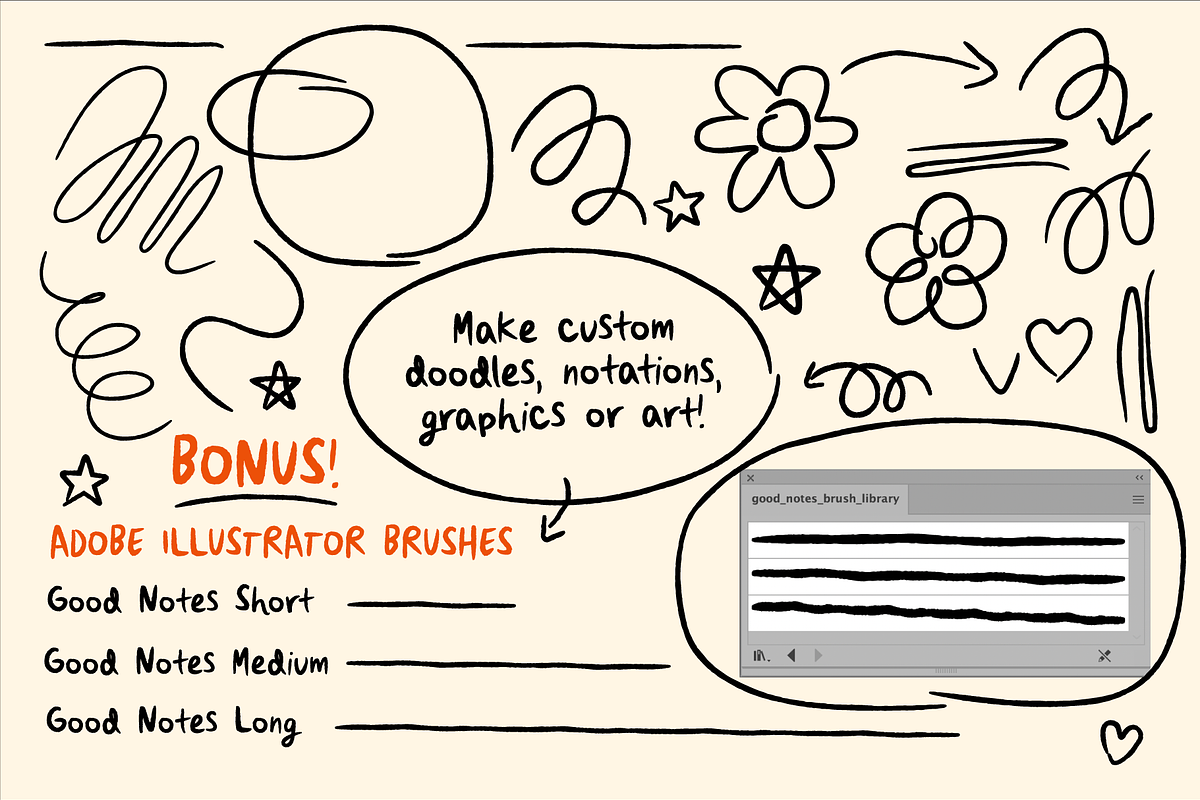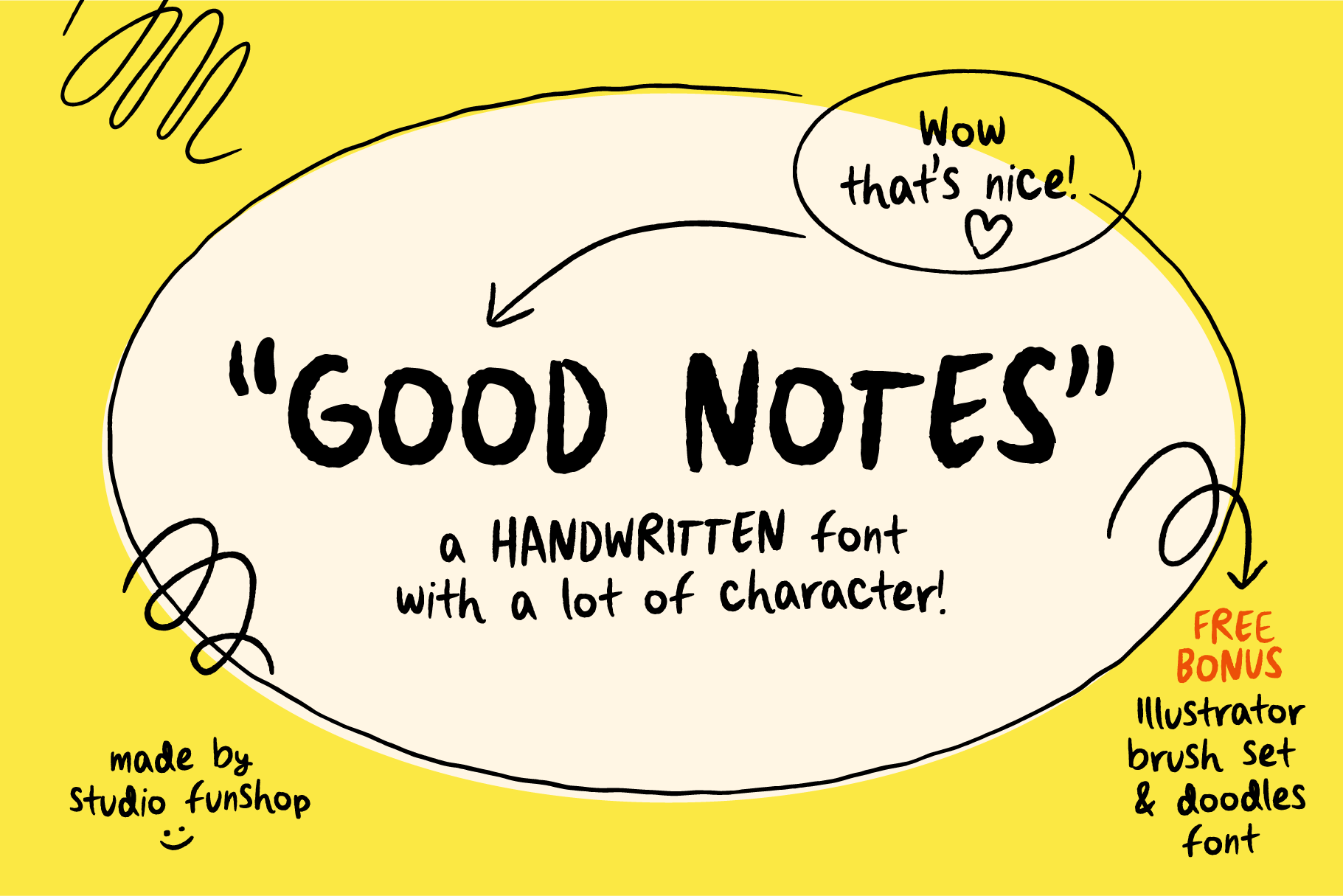
Good Notes! A Handwriting Font Set!
Good Notes, A Handwriting Font Set Looking for a super nice handwriting font to add a bit of character to your stuff? This is it! I hand-wrote 3 versions of each character so you can get that wonderful handmade look.
Plus, I made a bonus matching illustrator brush set and doodles font for even more customization!
Great for notes, quotes, art, display, and more! Enjoy!
What's in the font set? (see slides!)
- Good Notes Font: Uppercase and lowercase Letters A-Z! Numbers! Symbols! Punctuation! Alternates!
- Bonus! Doodle Font: 28 doodles!
- Bonus! Matching Illustrator Brush Library
For this brush set, I recommend using curved paths without harsh corners. "Good Notes Long" brush works best with long Paths, "Good Notes Medium" works best with medium Paths, and "Good Notes Short" works best with short Paths.